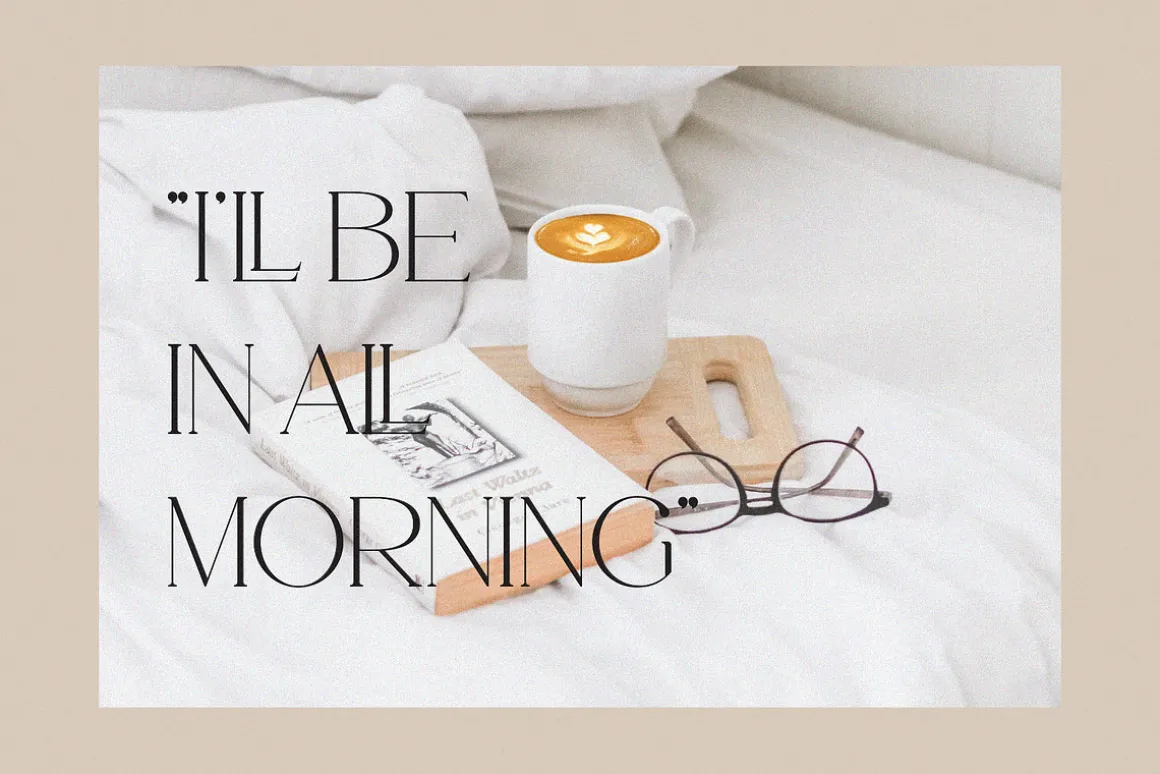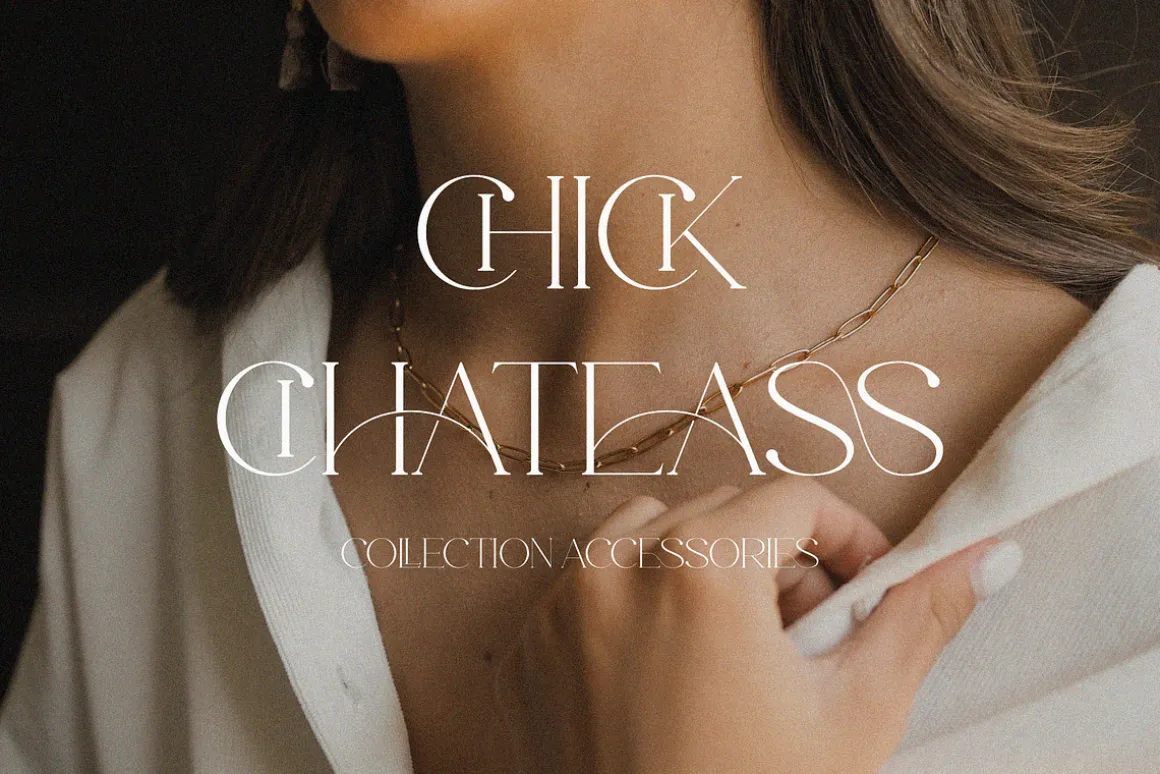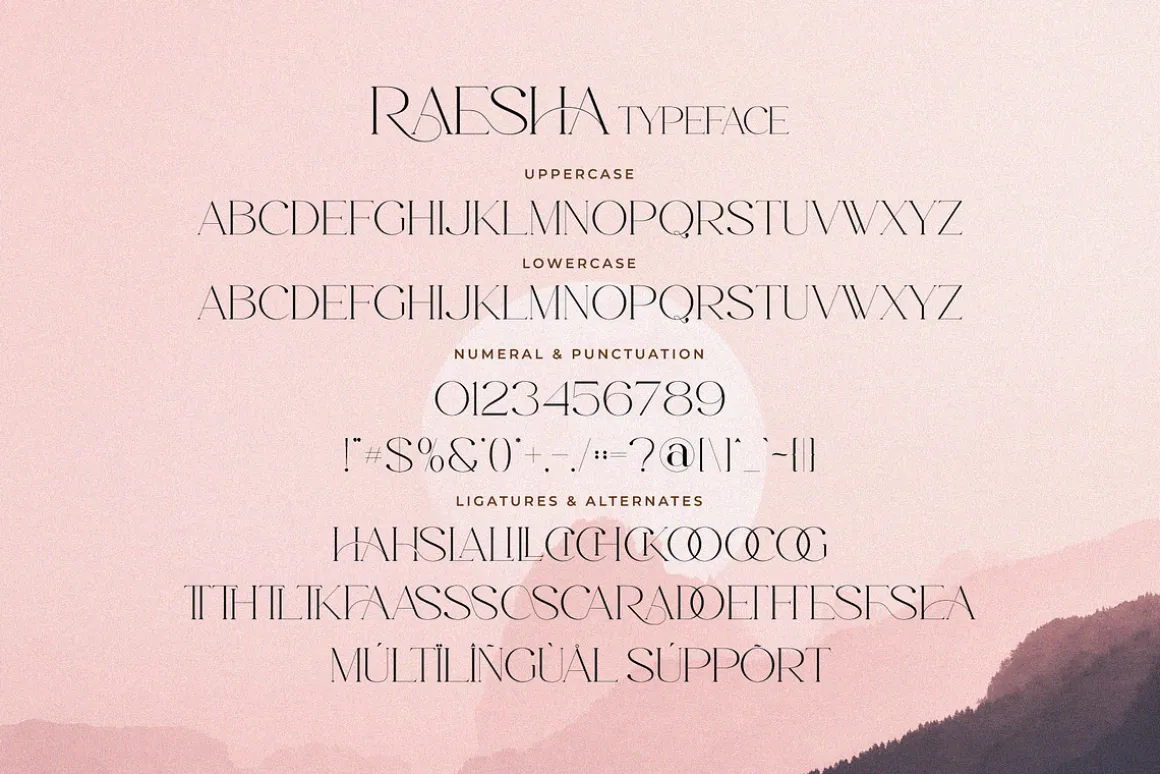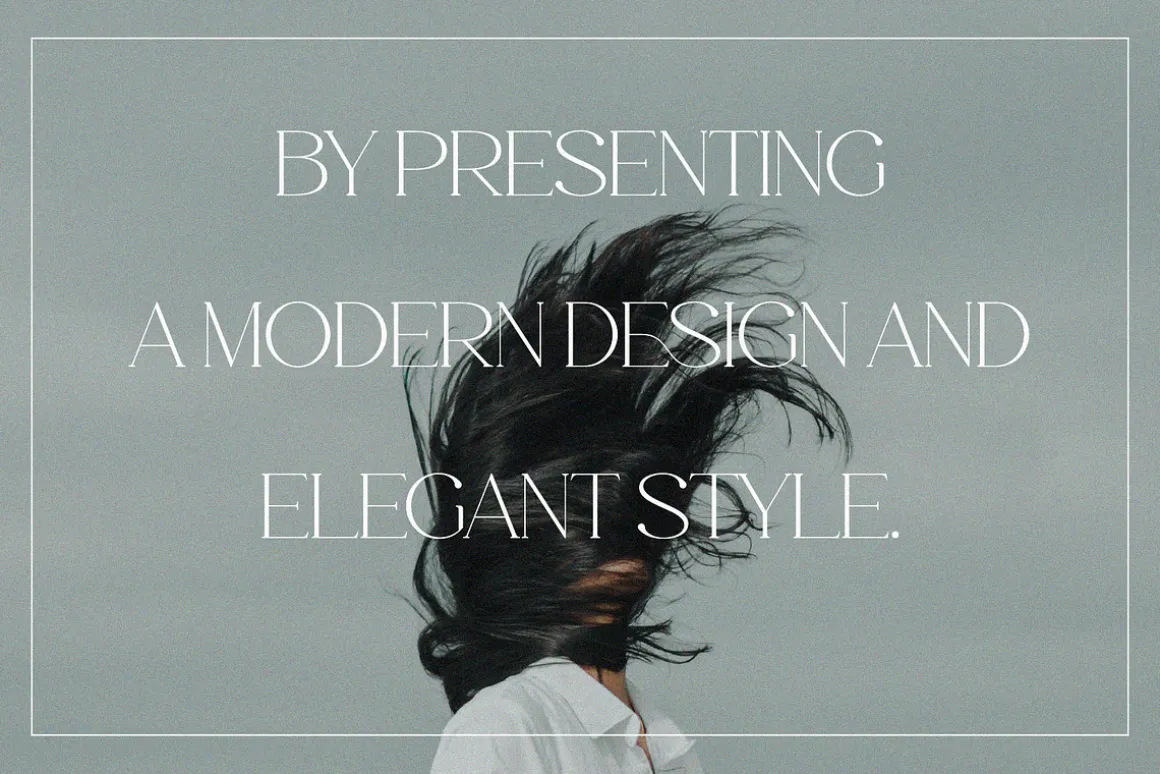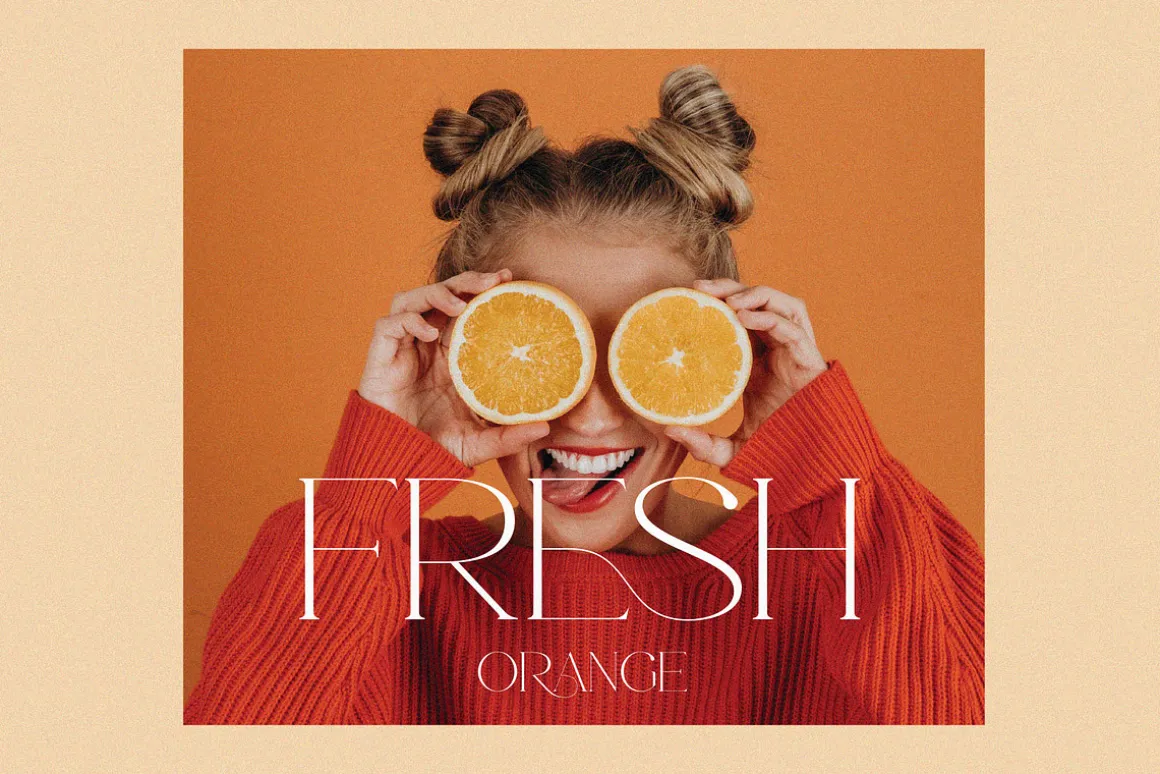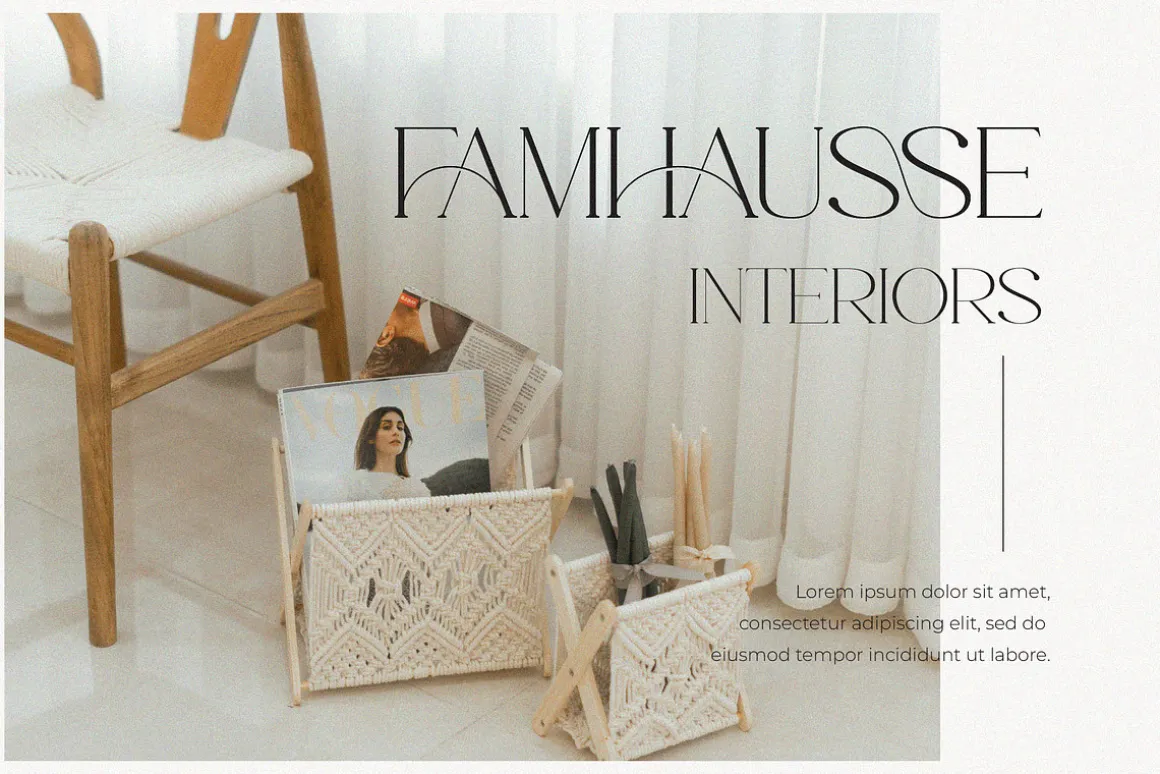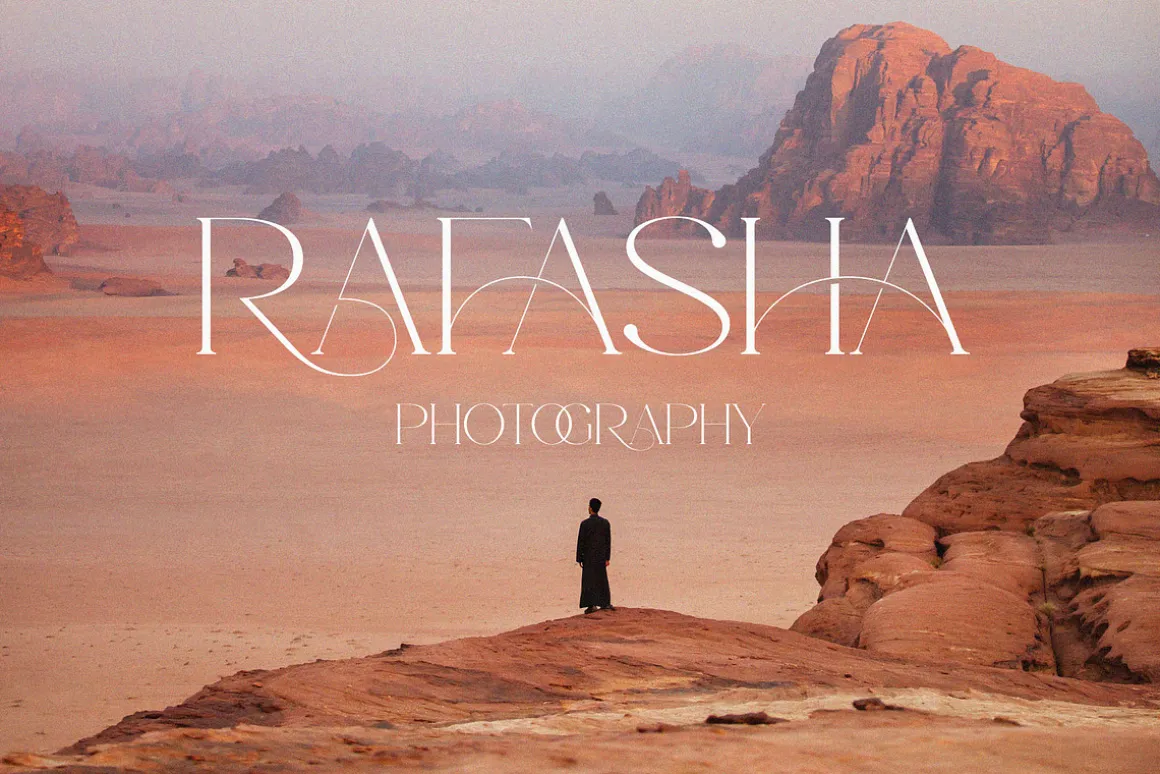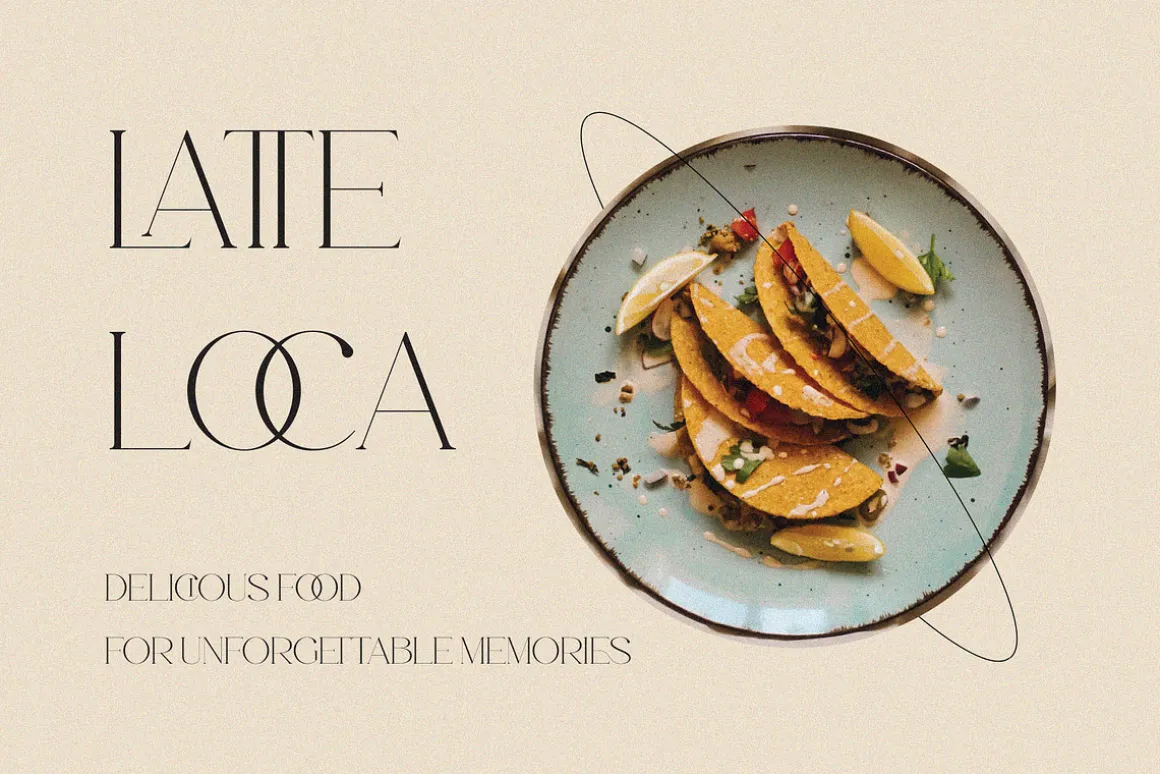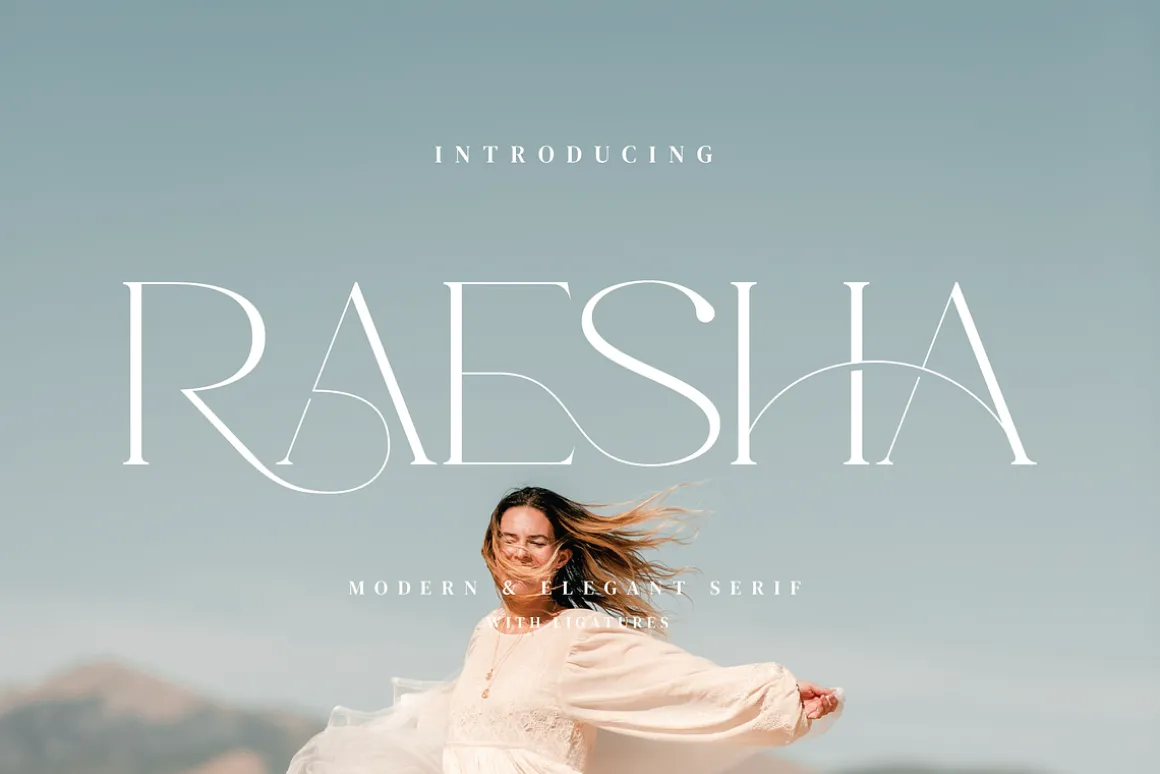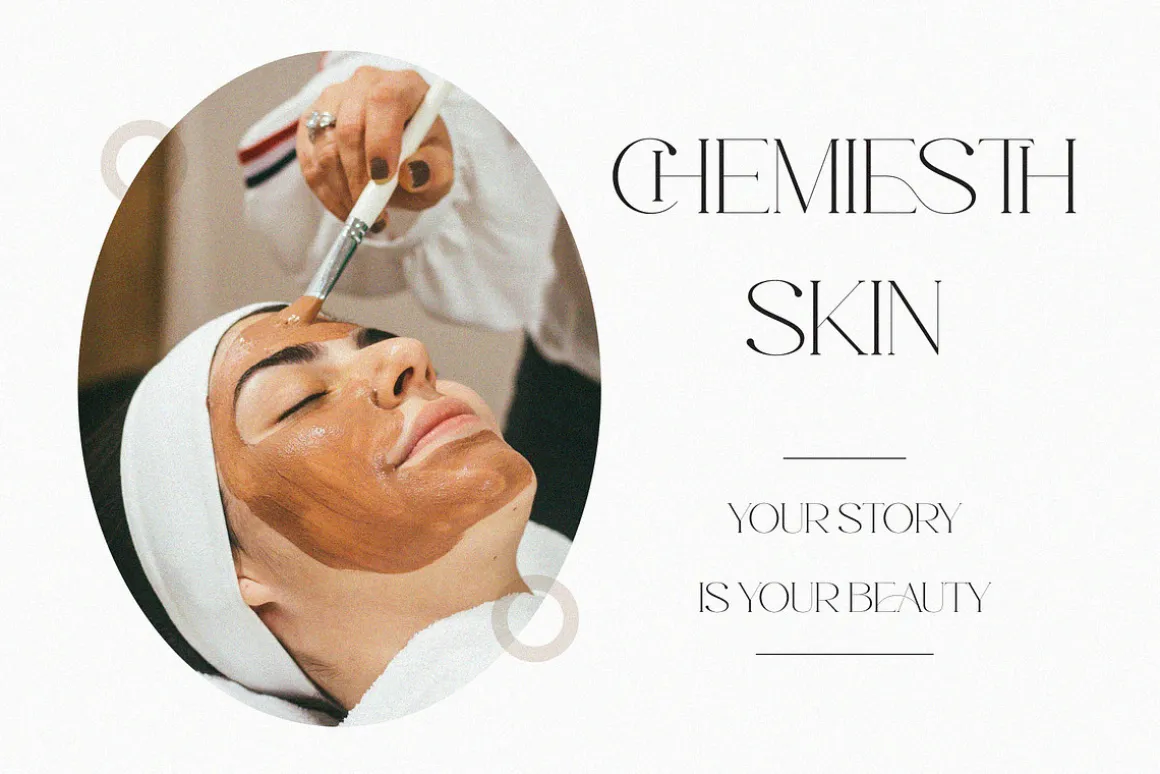
Raesha Stylish Ligature Typeface, inspired by the famous minimalist logo perfect for the purposes of designing templates, brochures, videos, advertising branding, logos and more.
- Ligatures
- International Accent